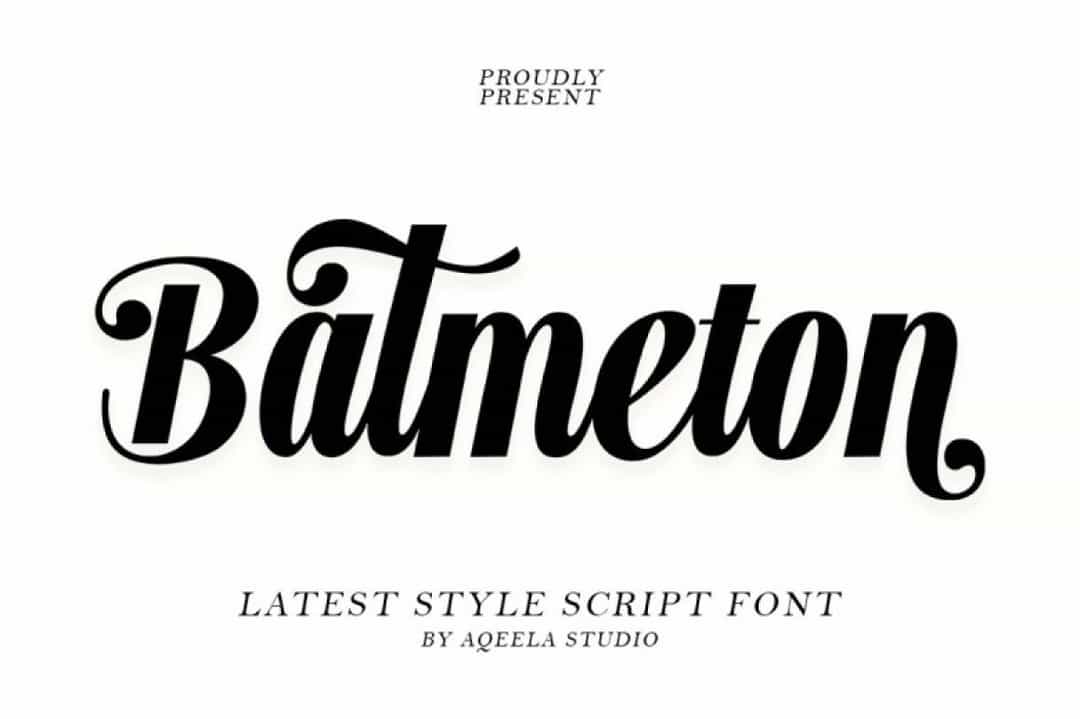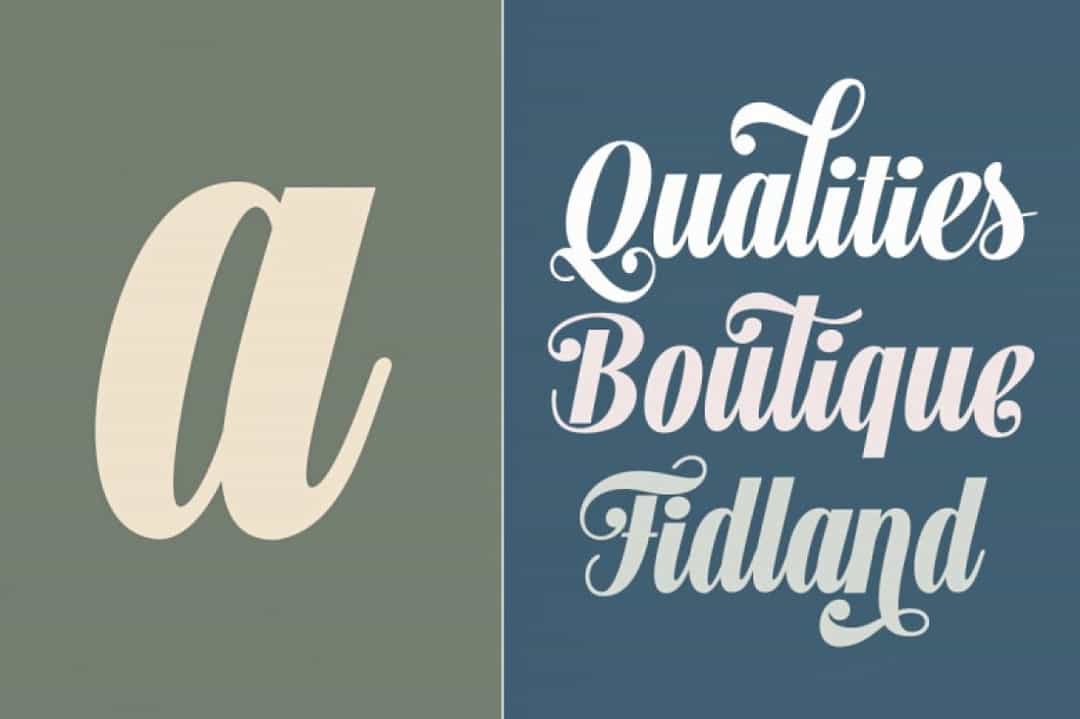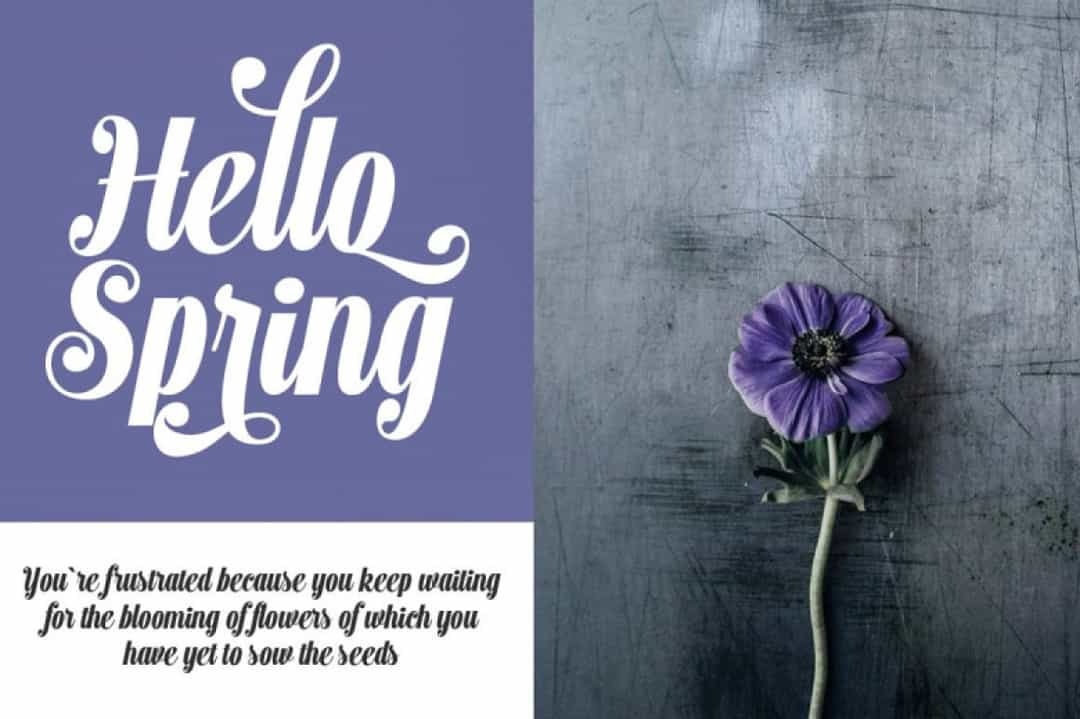
Discover Batmeton Font, part of the Calligraphy Script collection—a versatile and unique font perfect for adding a personal touch to your projects. Download it for free and enjoy crafting designs with style, from invitations to social media posts. This font is available exclusively for personal use, giving you the freedom to create without limits. Unlock your creativity with Batmeton Font today!
Batmeton Font is an updated Calligraphic font with its own distinct look, offering the best of vintage script and contemporary sans serif writing styles. Khusyida allows for elegant yet classic sophistication with its stylish characters and can add the finishing touch for wedding invitations, logos T-shirts letterheads signage labels news badges posters etc.